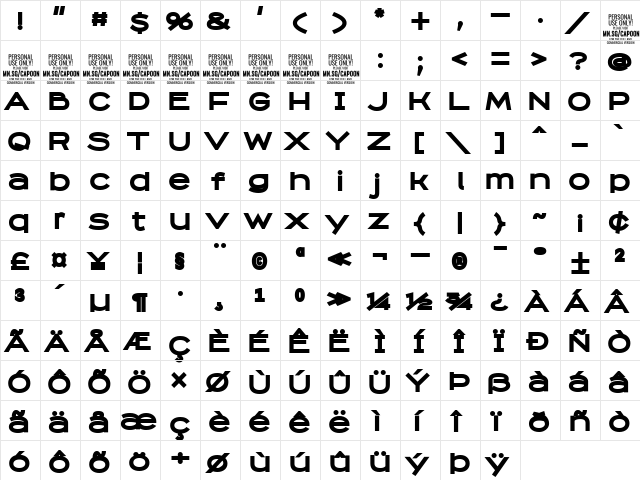
Capoon PERSONAL USE Black
| Foundry | Mans Greback |
| Designer | Mans Greback |
Design Context for Capoon PERSONAL USE Typeface
Capoon PERSONAL USE takes a measured approach to typography — its balanced proportions and neutral character make it a reliable workhorse for both digital and print work.